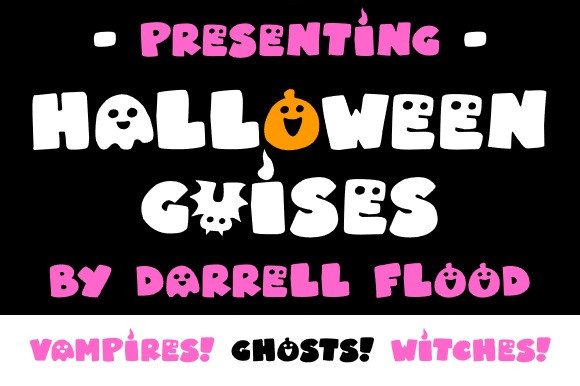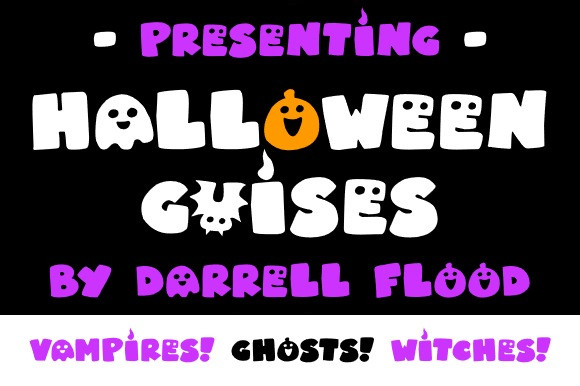
Halloween Guises Font
Halloween Guises Font is a super cute spooky Halloween themed font that includes neat little character images instead of vowels. Perfect for holiday parties, card and decorations, and general family horror use!